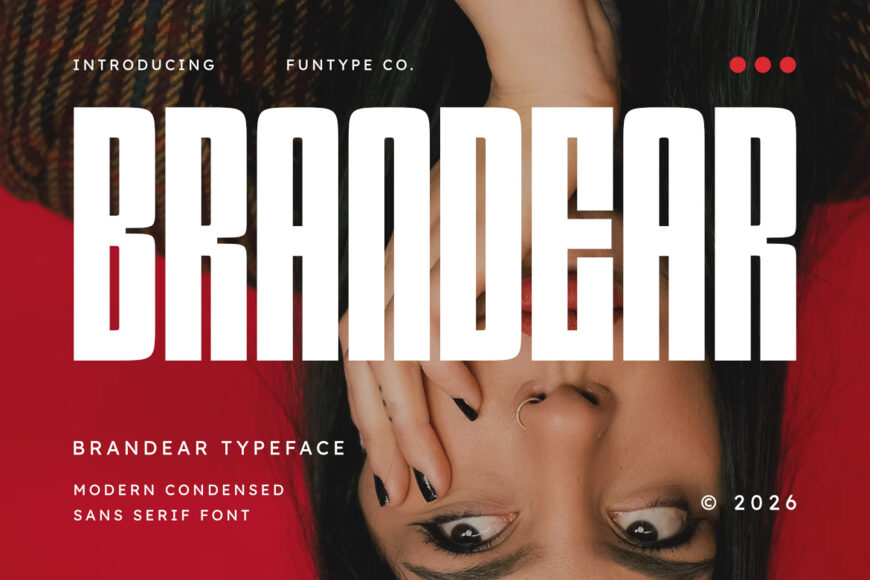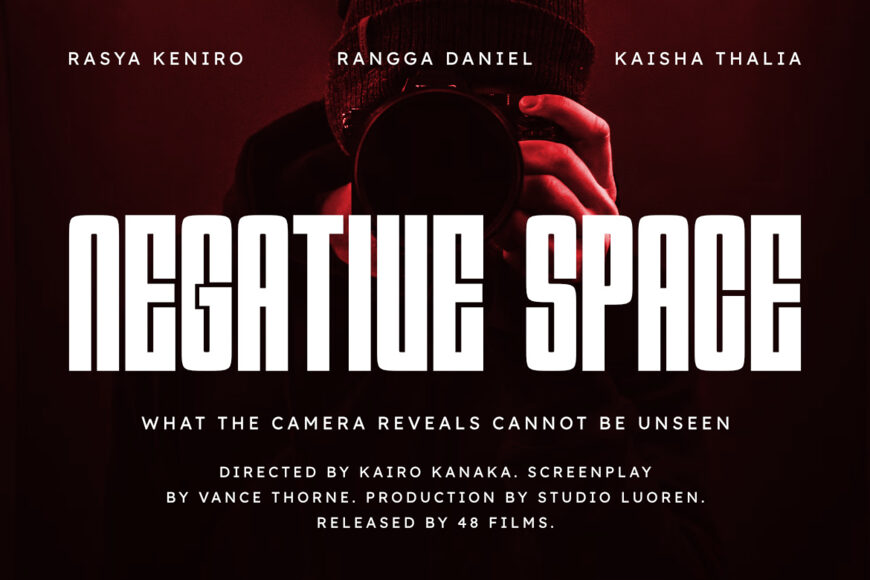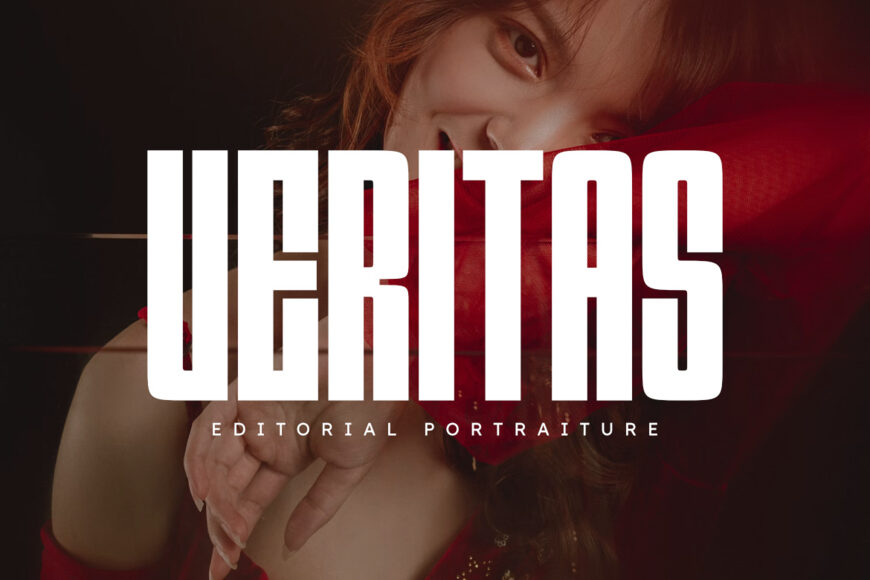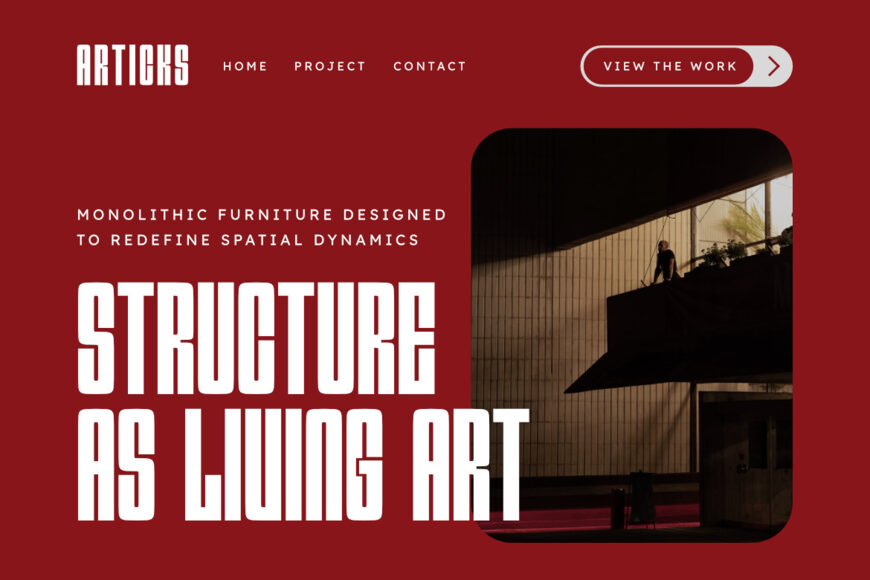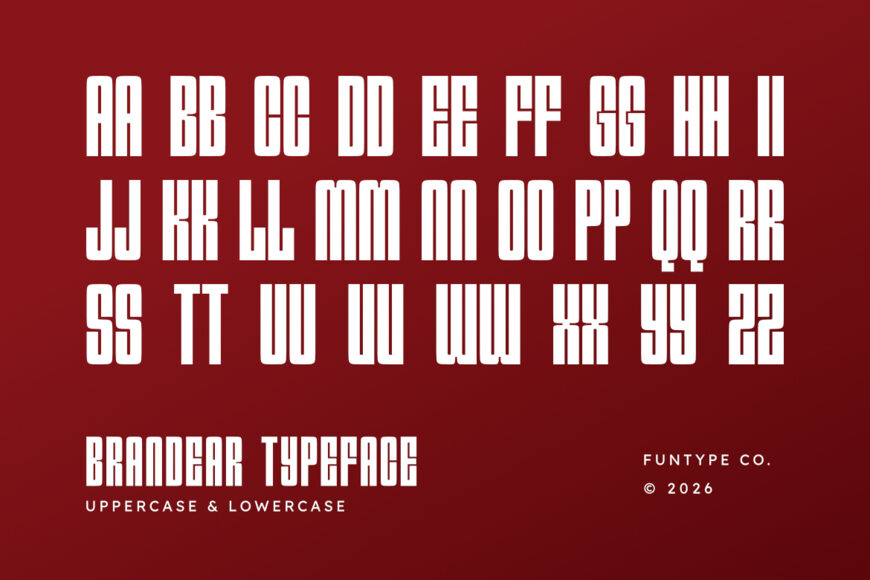
Brandear Font
Brandear is a bold, high-impact, and modern condensed sans serif font, engineered to bring a strong visual presence, clean geometric proportions, and a trendsetting display aesthetic to contemporary graphic layouts.
Featuring tall vertical stems, smooth rounded outer corners, and crisp rectangular inner counters, Brandear introduces an assertive editorial magazine identity, high-concept branding showcase, cosmetic presentation, and prominent digital media design built to claim absolute visual focus.